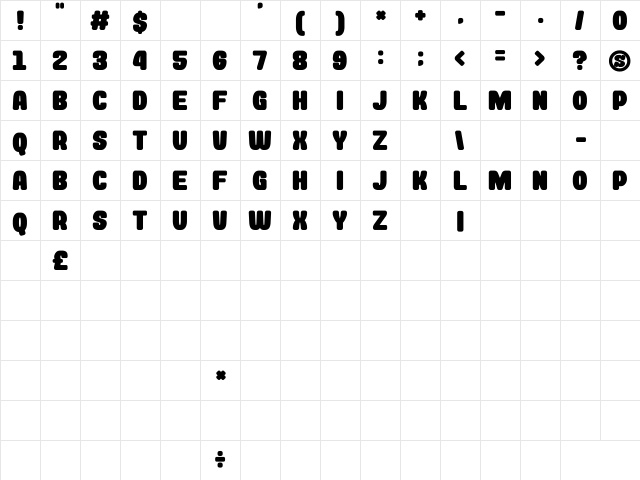
Rockin' Record Regular
Design Context for Rockin' Record Typeface
Rockin' Record takes a measured approach to typography — its balanced proportions and neutral character make it a reliable workhorse for both digital and print work.
Pro Tip: Use Rockin' Record in both headline and body roles to test its range before committing to a single application.